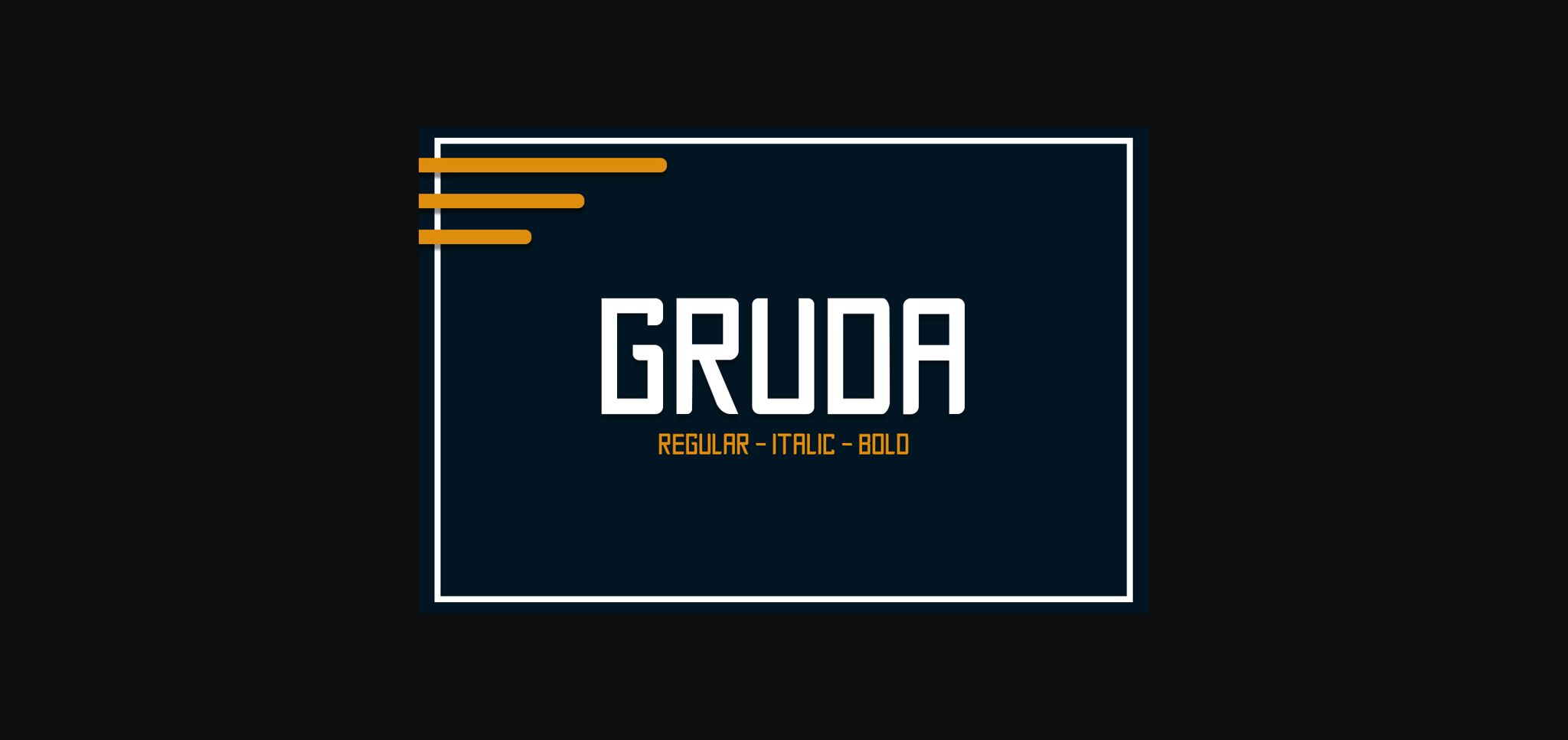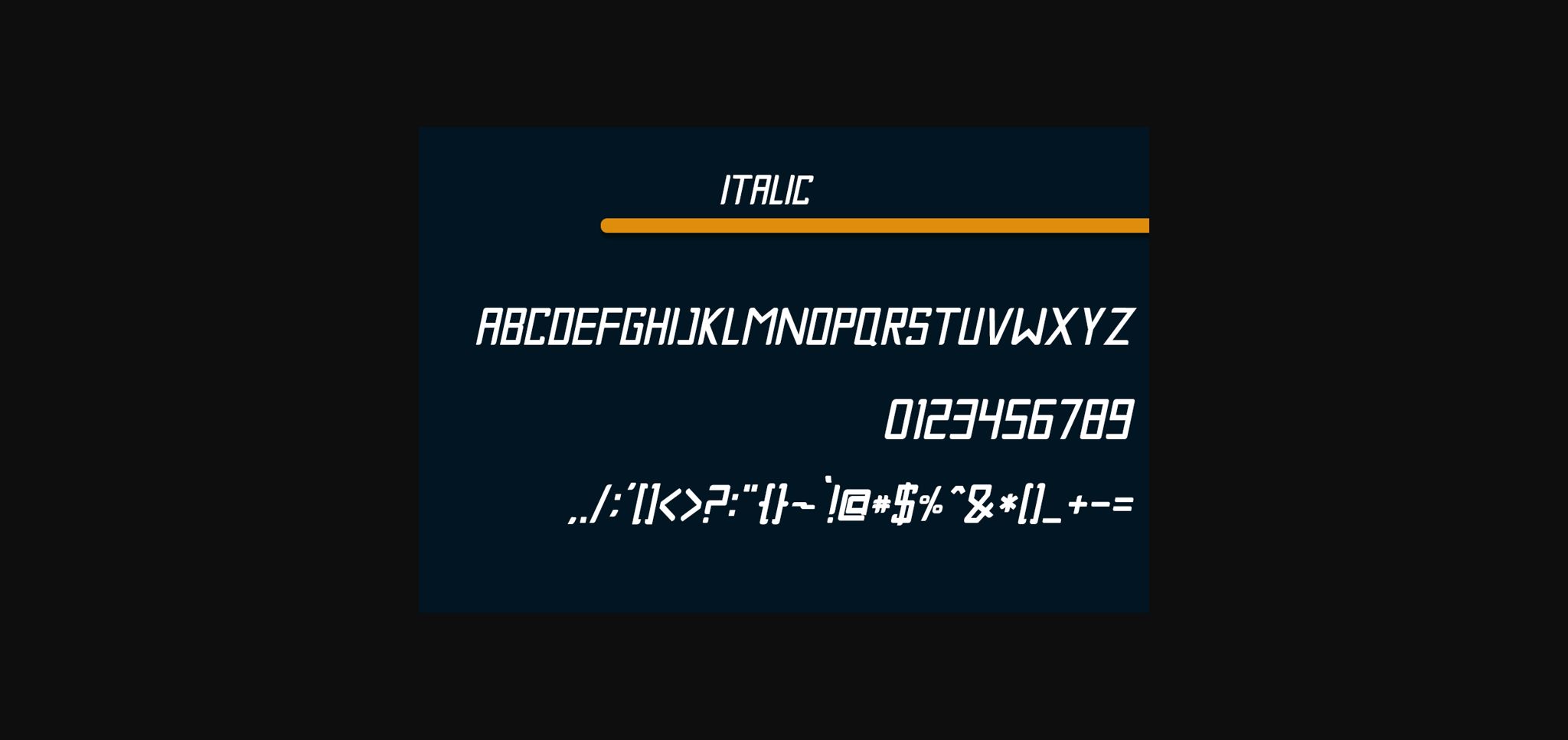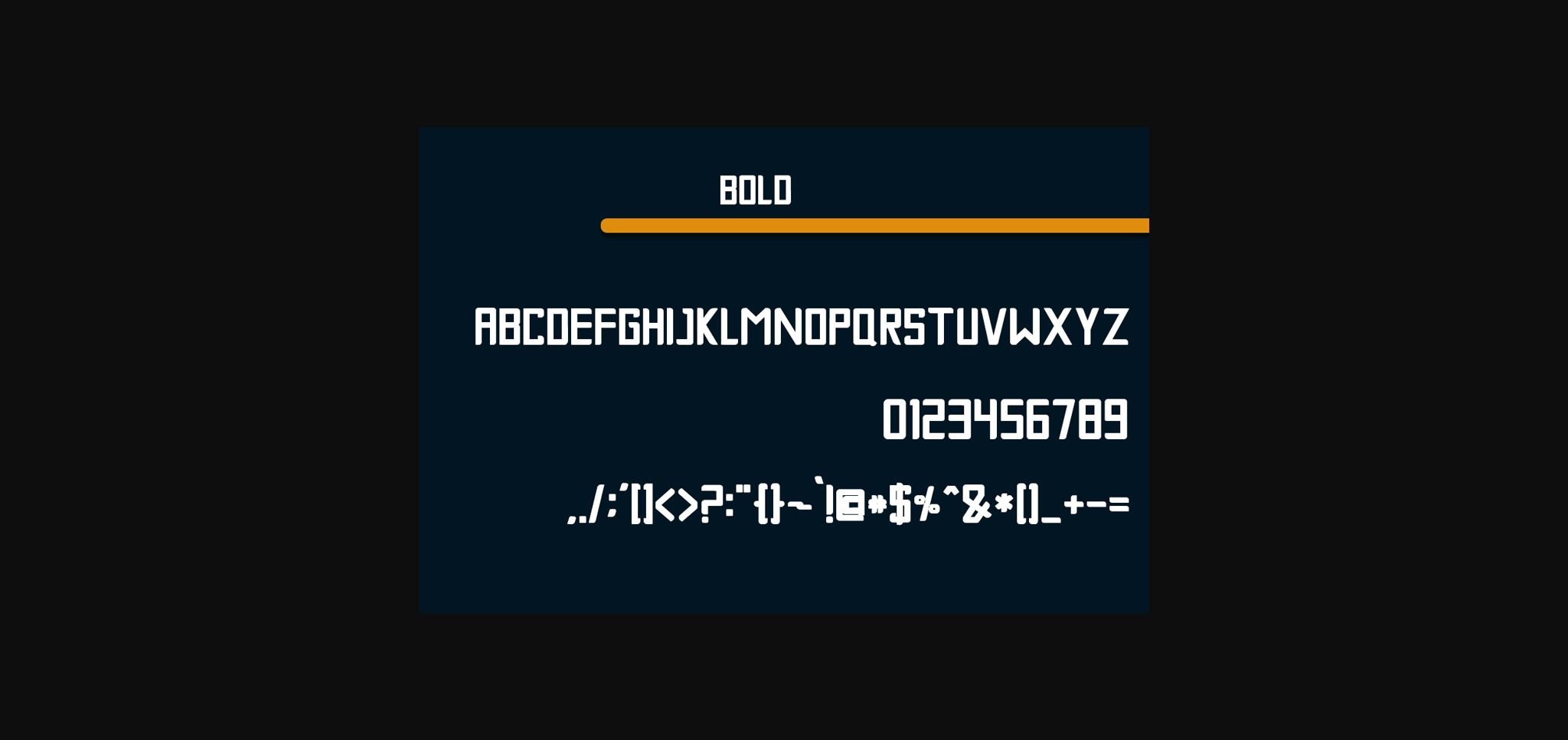
About Gruda Font
Gruda is a minimal, yet bold and elegant sans serif font. Suitable to a wide variety of designs due to its neat and simple style, Gruda has the potential to become your favorite go-to font, no matter the occasion!